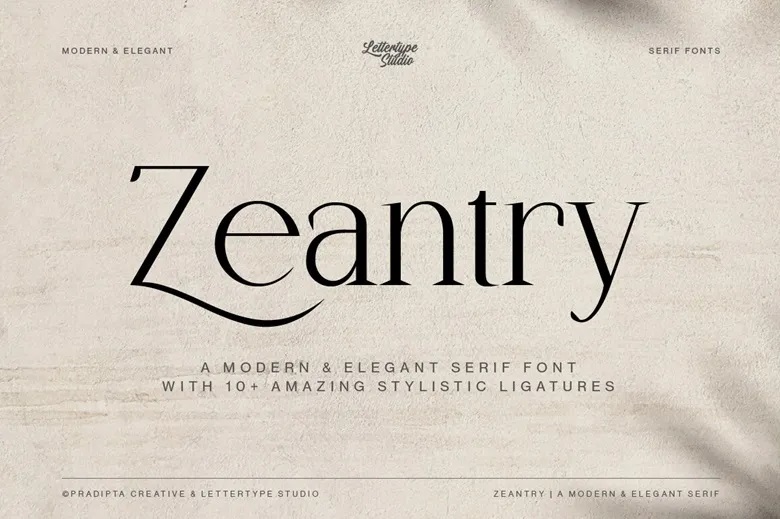
Zeantry Font
Zeantry is a beautiful clean and elegant serif font with classical appearance influenced by the typography of the 18th century.. Ideal for elegant branding, magazine design, web typography and many other purposes. With these fonts, you will be able to create projects that will never go out of style with their simple and clean design, geometric and luxurious embellishments. A perfect solution for designers who consider typography as one of the key elements of their projects.
Zeantry font with many styles and multilingual support, enhances your designs for screen and print with a contemporary and retro look. This font is both suitable for large and small sizes and contains 18 styles normal and italic. Including over 10 different stylistic ligatures, multiple language support, and a range of weights.
Zeantry Serif Font